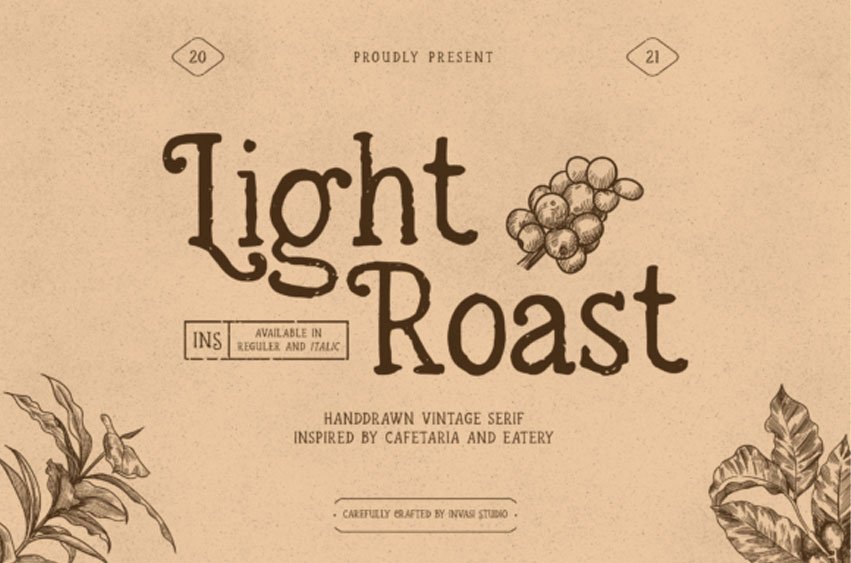
Light Roast Font is a vintage styled and rough textured serif font. It can easily be matched to an incredibly large set of projects, so add it to your creative ideas and notice how it makes them stand out!